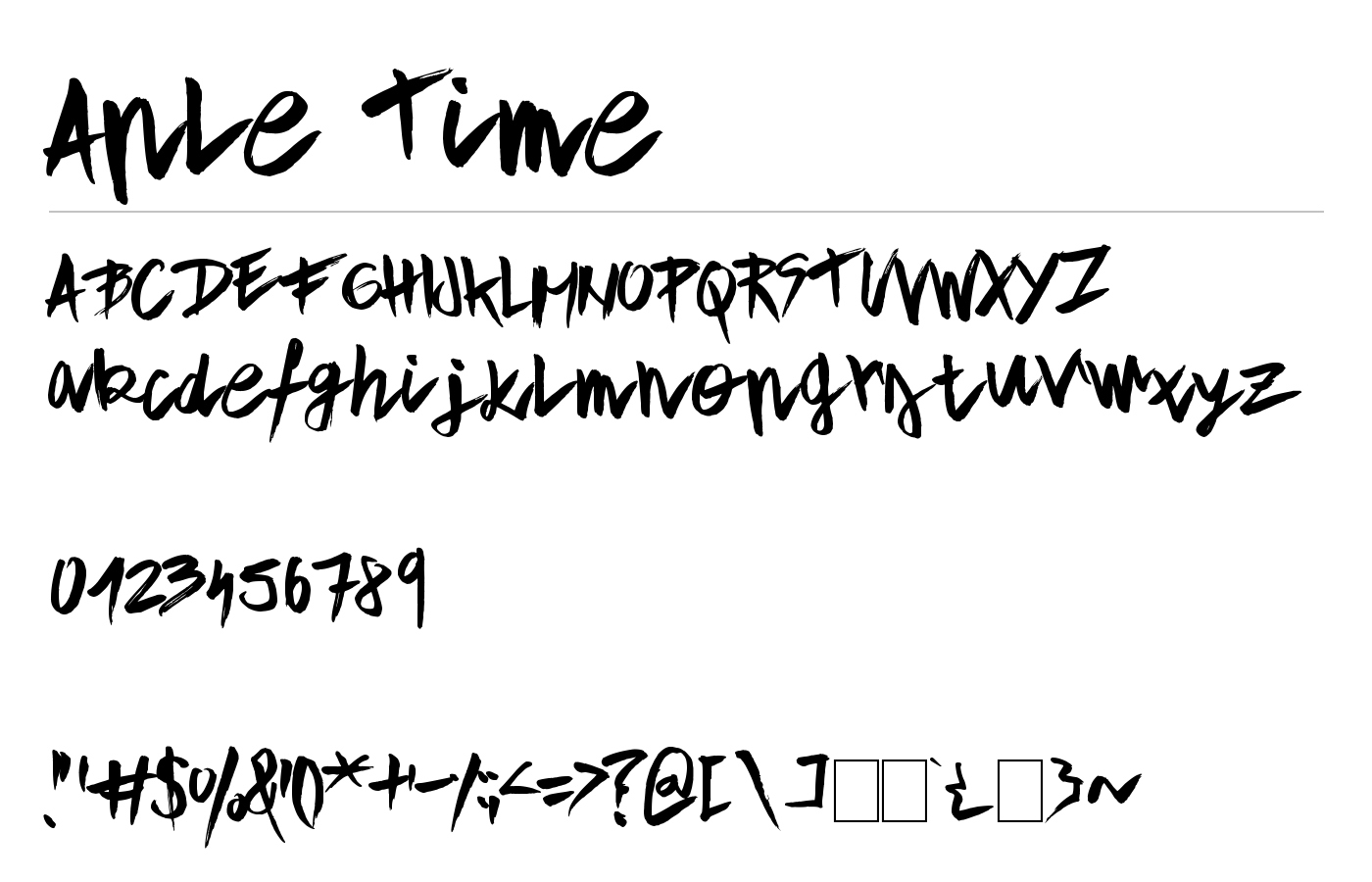
Aple Time is a bold, expressive script font with a hand-painted, brushstroke style that conveys energy and creativity. Its irregular, textured letterforms with dynamic angles give it an informal, artistic feel, making it perfect for eye-catching headlines, branding, and creative projects that want to stand out with a raw, spontaneous vibe. This font works best where a lively, personal touch is needed rather than for formal or lengthy text.
Aple Time Font